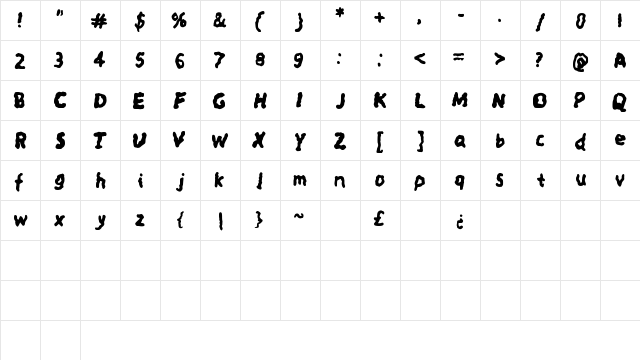
Spooky Squiggles Regular
Design Context for Spooky Squiggles Typeface
Spooky Squiggles is a composed and adaptable typeface that performs quietly and consistently across a wide range of design contexts.